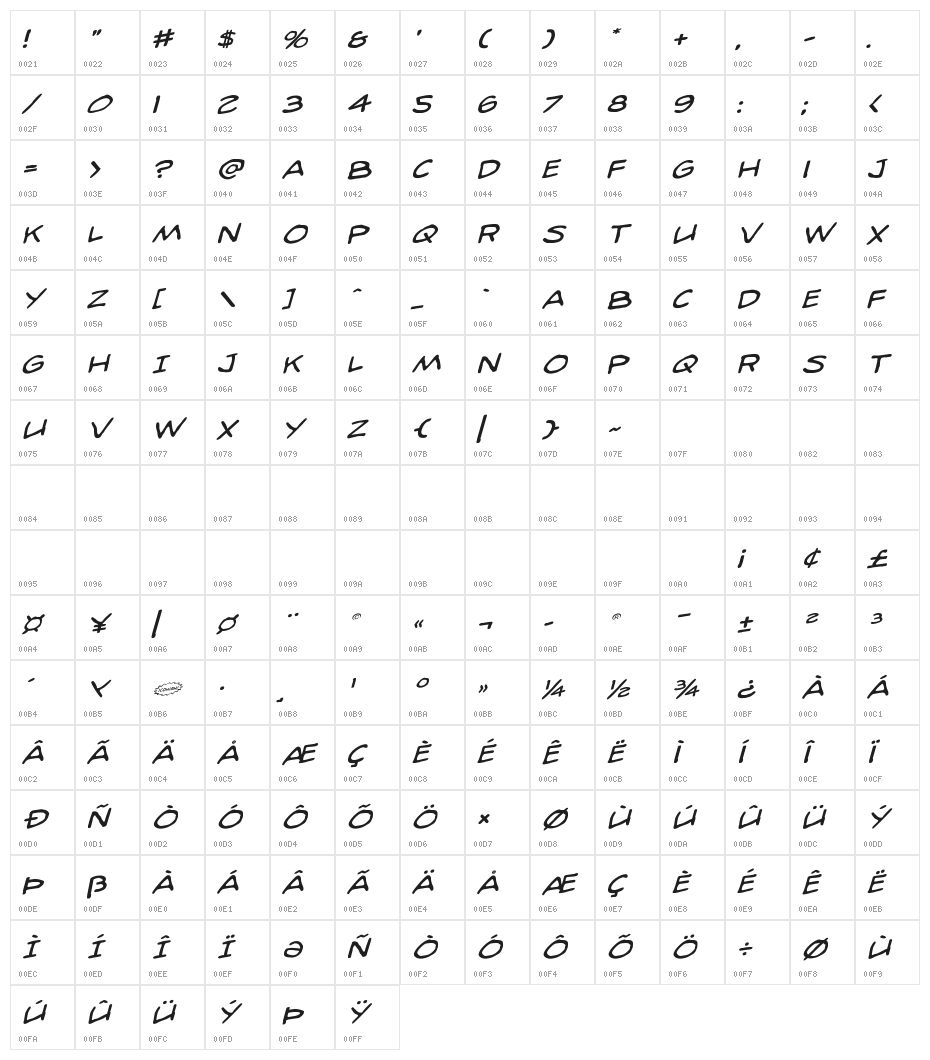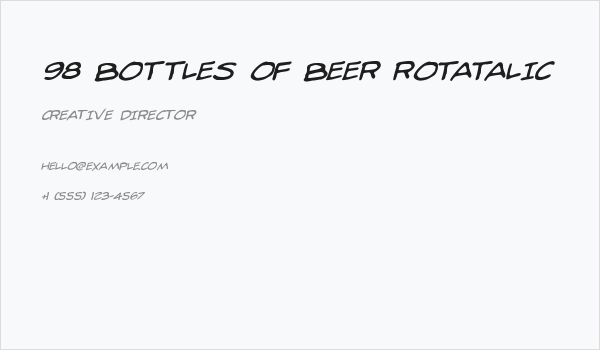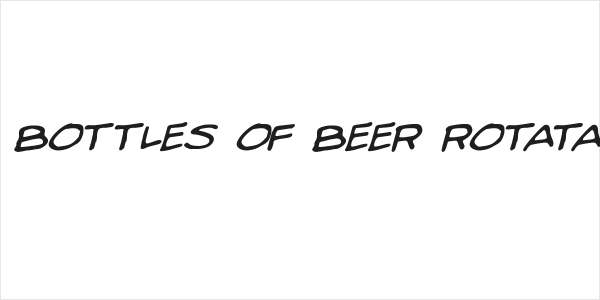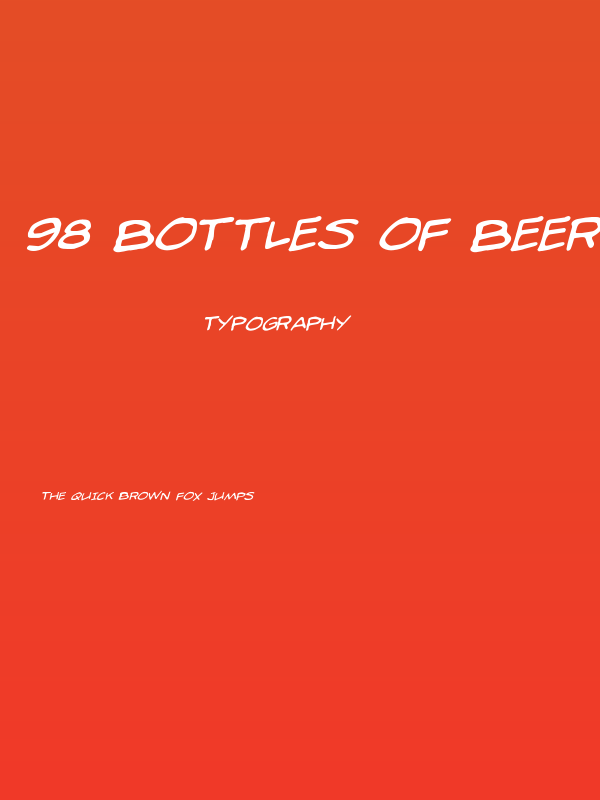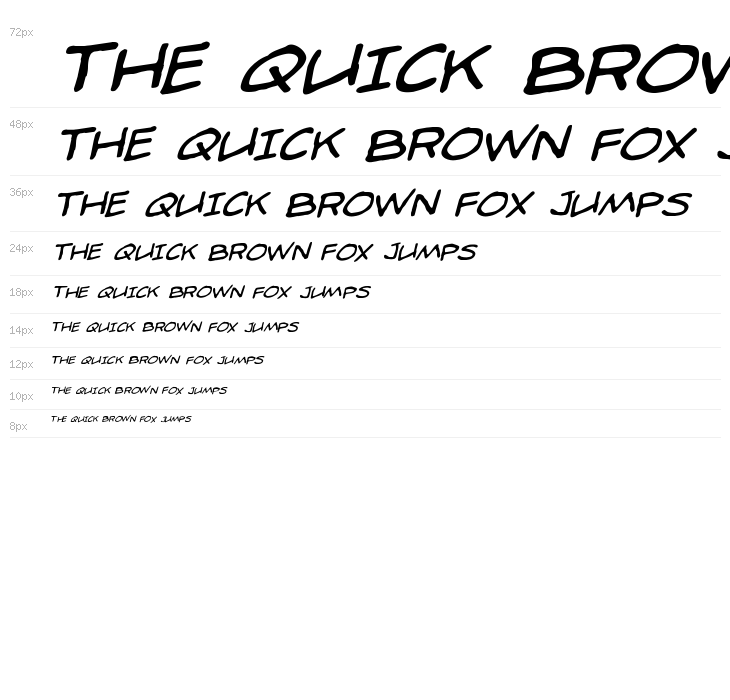
98 Bottles of Beer Rotatalic Font
98 Bottles of Beer Rotatalic Description
This font features a dynamic and energetic style, characterized by its slanted, italicized form that gives it a sense of motion and fluidity. The strokes are bold and consistent, with a slight variation in thickness that adds a touch of personality without compromising readability. The uppercase and lowercase letters maintain a cohesive look, with rounded edges and a slight tilt that enhances the handwritten feel. Numbers and special characters are designed with the same attention to detail, ensuring a uniform appearance across all glyphs. This font's playful yet professional aesthetic makes it suitable for a variety of creative projects.